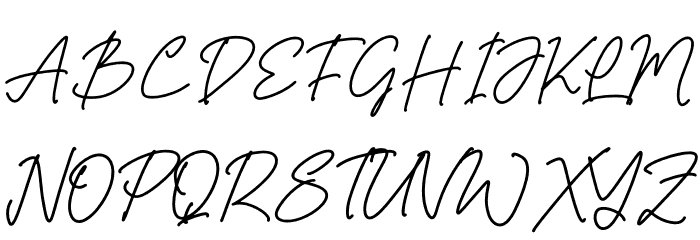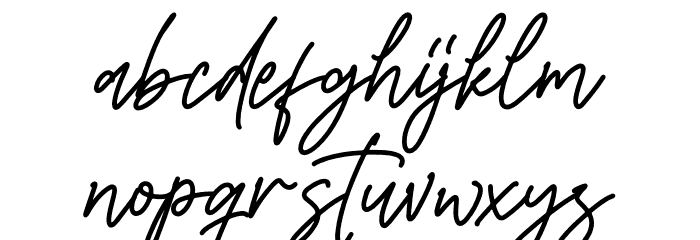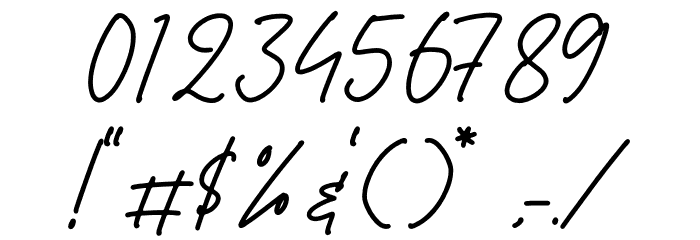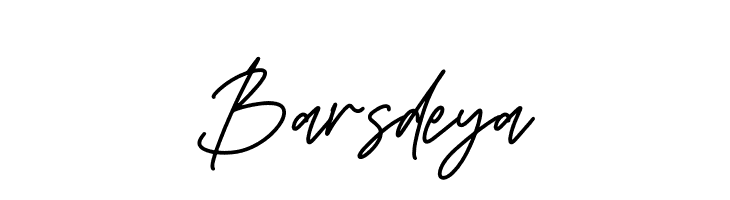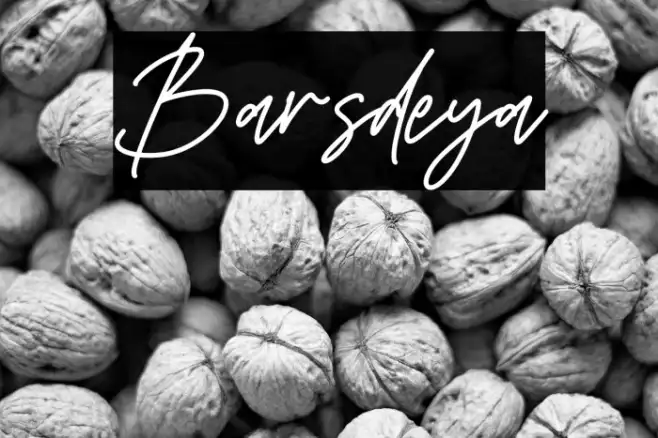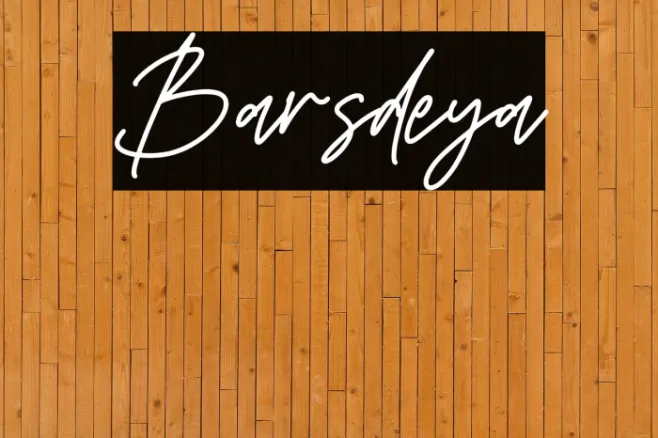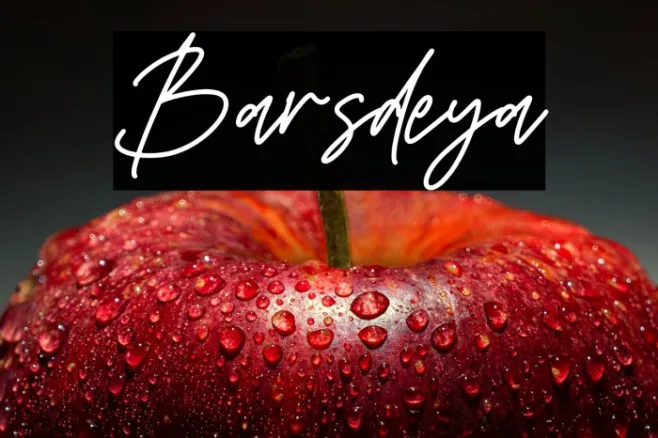
Barsdeya Font
A flowing, cursive script font with a handwritten style, featuring smooth, connected letters and a casual elegance.
Handwritten cursive script font.
- Proposed Projects: Invitations, greeting cards, personal branding.
- Category: Script
- Character Spacing: Tight
- Overall Style: Casual, Elegant
- Use Case: Logos, Invitations, Personal notes